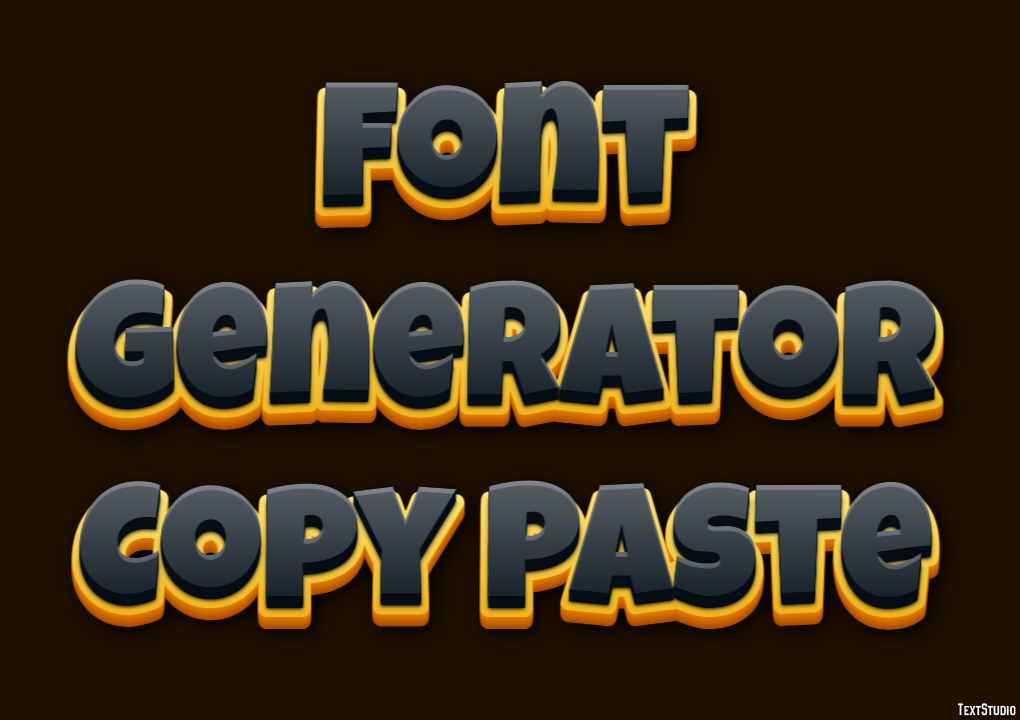
Yellow and black 3D text
Font Generator Copy Paste Text Effect
Font effect designs Font Generator Copy Paste.
Enhance your text with our cutting-edge font style text effect generator. Create eye-catching designs with 3D elements, and choose from a variety of fonts to make your words pop. Whether it's a dark day or a vibrant occasion, our yellow and black options will captivate your audience.